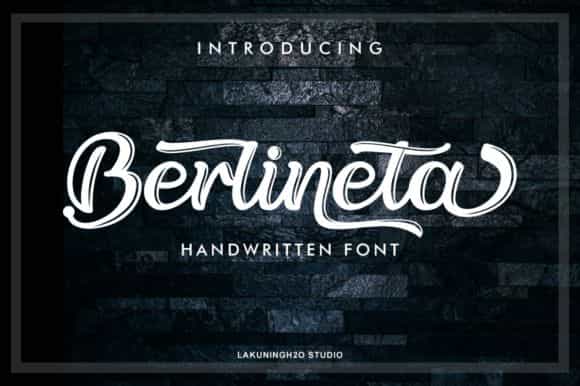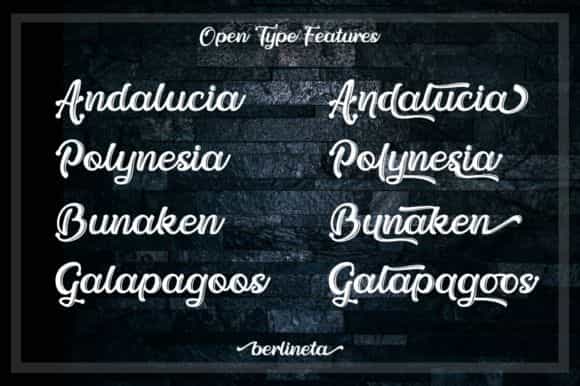
Introducing Berlineta Font. It is was created and shared by LakuningH2O. The Berlineta is a beautiful handwritten script which comes in two styles: regular and neat. It can be used in many projects, for instance branding materials, quotes, stationery, t-shirt designs, book covers, weddings, publishers and so on.